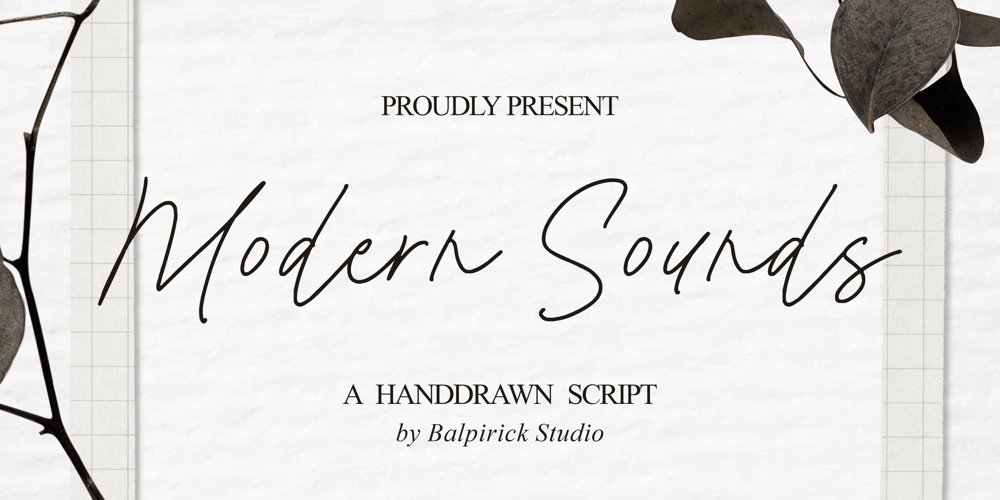
Modern Sounds
Modern Sounds font
Modern Sounds Font Family was designed by Restu Angga and published by Balpirick. Modern Sounds contains 1 styles and family package options. Modern Sounds is a Monloline Script FontDive into the world of contemporary design with Modern Sound, a stylish monoline script font that exudes a sleek and sophisticated vibe. With its seamless strokes and modern aesthetics, “Modern Sound” is the perfect choice for design projects that require a touch of minimalism and elegance. – also multilingual supportEnjoy the font! Feel free to comment or feedback!Thank you!